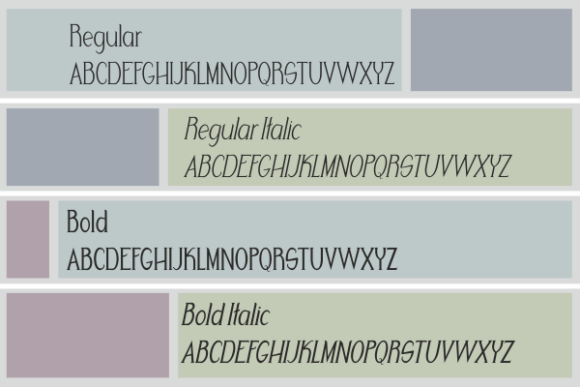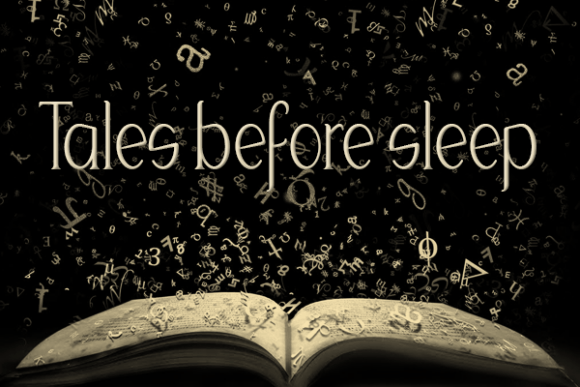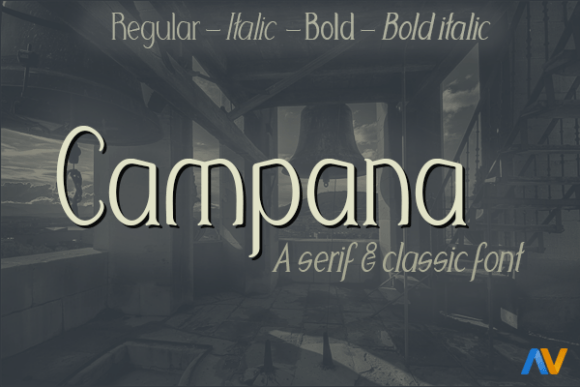
Introducing Campana: A Timeless Serif Font for Elegant Designs
In the world of typography, few fonts manage to capture the essence of timeless elegance. Campana, a serif font designed by Alberto Villanueva in 2016, is one such exceptional creation. With its classic appeal and versatile design, Campana has become a go-to choice for designers seeking to add a touch of sophistication to their projects. In this article, we’ll explore the features and benefits of Campana, and why it’s an essential tool for creating compelling designs.
The Design Behind Campana
Campana is the brainchild of Alberto Villanueva, a renowned designer with a passion for creating typography that exudes elegance and refinement. Launched in 2016, Campana has quickly gained popularity among designers and crafters for its unique blend of classic and modern elements. The font’s design is characterized by its sturdy and sleek lines, making it perfect for a wide range of applications, from print to digital media.
Key Features of Campana Font
Campana is more than just a font – it’s a comprehensive typographic experience. Here are some of its key features:
- Four Style Variations: Campana offers four distinct styles to suit your design needs: Regular, Regular Italic, Bold, and Bold Italic. This range allows you to experiment with different tones and emphasis, adding depth and nuance to your designs.
- Classic Serif Design: Campana’s serif design is reminiscent of traditional typography, evoking a sense of nostalgia and timelessness. The font’s classic appeal makes it perfect for projects that require an air of sophistication.
- Web Fonts and Vectors: Campana is not just limited to print; it also includes web fonts and vectors, making it a versatile tool for digital projects. The inclusion of vectors allows for ultimate creativity, as you can scale and manipulate the font to suit your needs.
Applications of Campana Font
Campana’s versatility makes it suitable for a wide range of applications, including:
- Print Design: Use Campana for brochures, posters, business cards, and other print materials that require a touch of elegance.
- Digital Media: Campana’s web fonts make it perfect for websites, blogs, and social media graphics that need a sophisticated typography.
- Branding and Identity: Campana’s classic appeal makes it an excellent choice for branding and identity projects, such as logos, letterheads, and packaging.
Why Choose Campana Font?
With so many fonts available, why choose Campana? Here are a few compelling reasons:
- Timeless Elegance: Campana’s classic design ensures that your designs will stand the test of time, remaining elegant and sophisticated for years to come.
- Versatility: With four style variations, web fonts, and vectors, Campana offers unparalleled versatility, making it suitable for a wide range of applications.
- Easy to Read: Campana’s clear and legible design makes it easy to read, even at small font sizes, ensuring that your message is communicated effectively.
| Font Name | Campana Font |
| Author | Wakoletras |
In conclusion, Campana is more than just a font – it’s a quintessential tool for creating compelling designs with a timeless essence. With its classic appeal, versatile design, and comprehensive feature set, Campana is an essential addition to any designer’s toolkit. Whether you’re working on print or digital projects, Campana is sure to elevate your designs to new heights of elegance and sophistication.